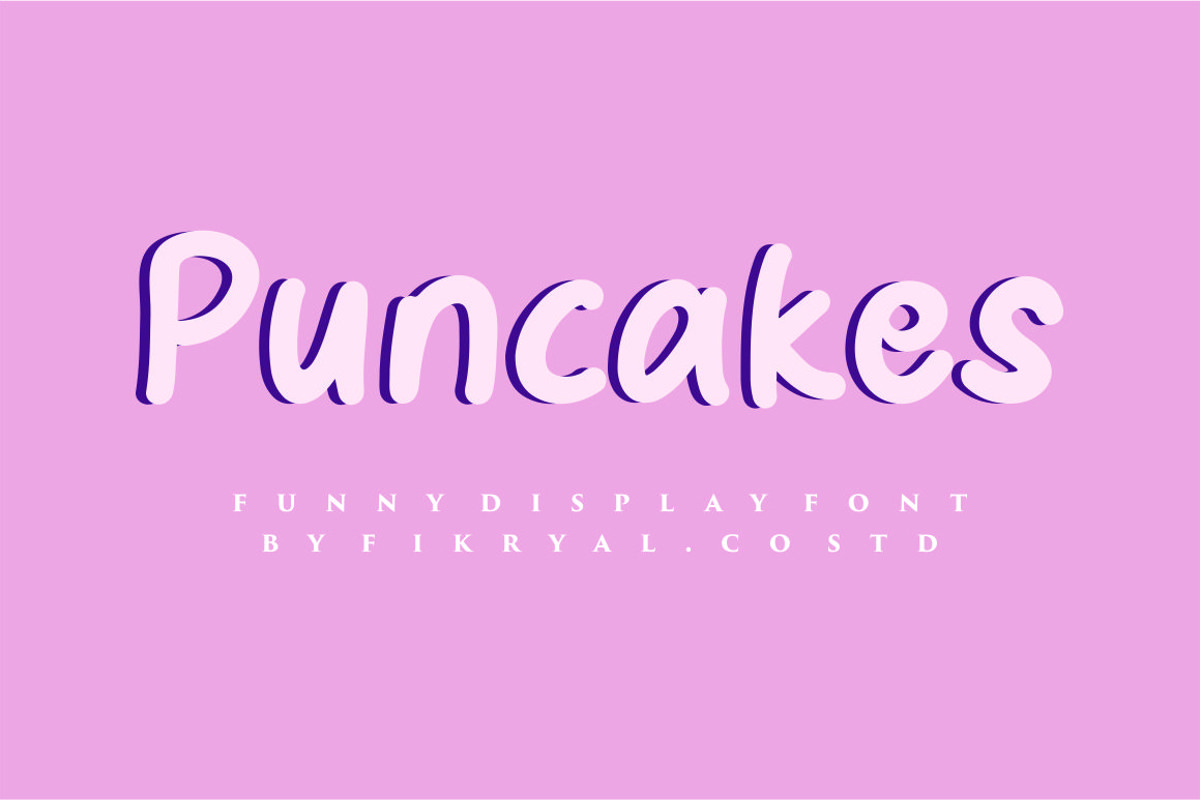
Puncake - funny font
Puncakes
Puncakes - Font  is a new funny & stylish display font.
I'ts
Perfect for logo,branding,  tittle, social
media posts, advertisements, product packaging, product designs, label,
photography, watermark, special event,magazine,web design,etc.What's